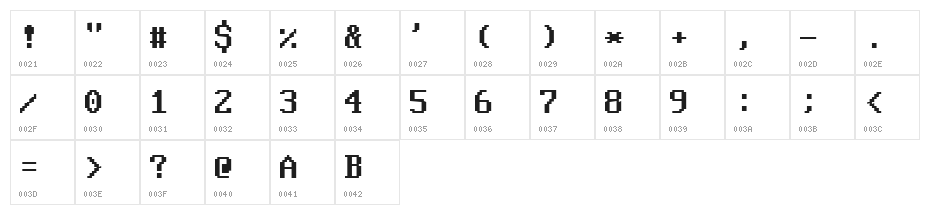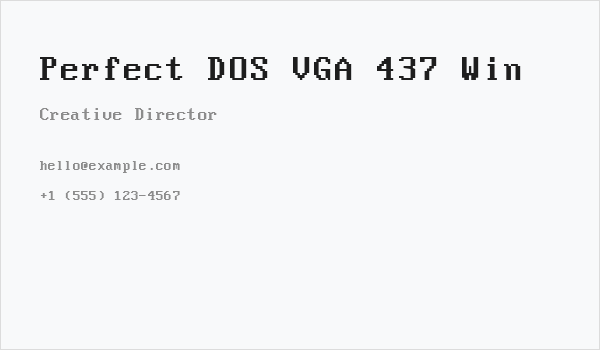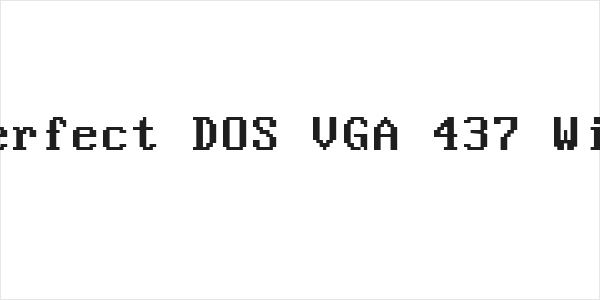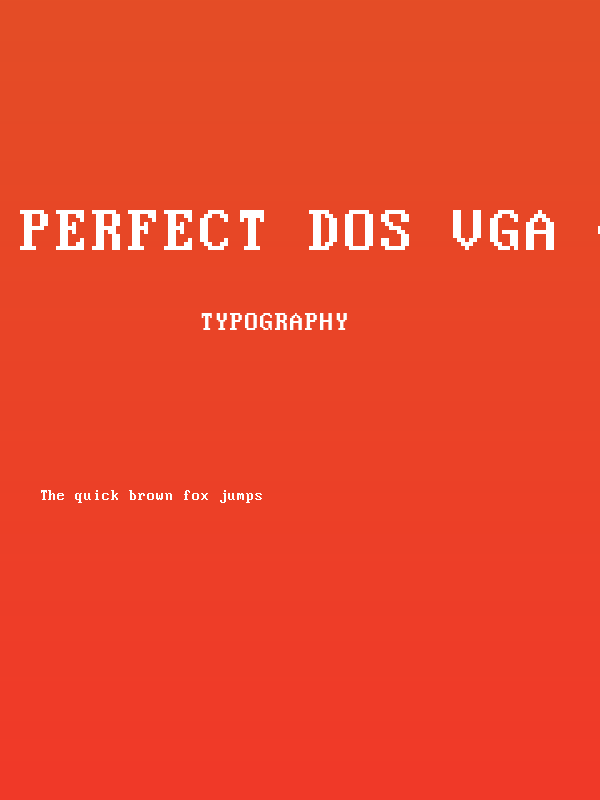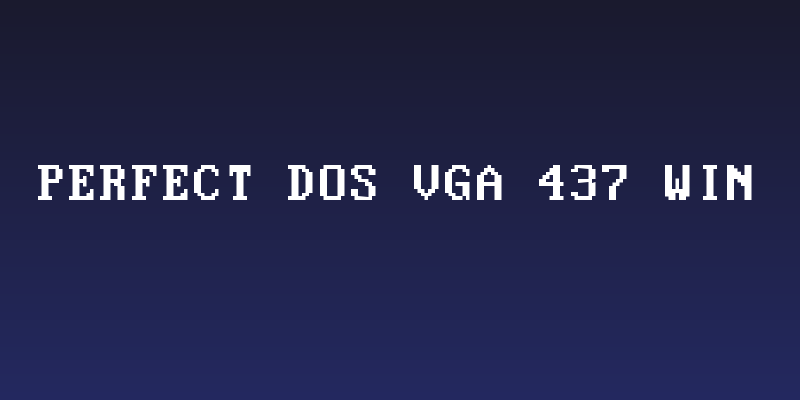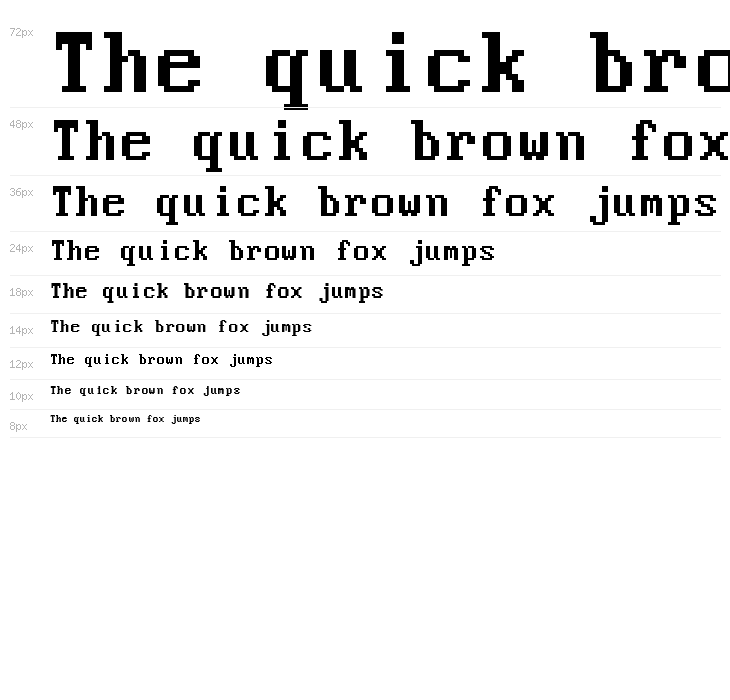
Perfect DOS VGA 437 Win Font
Perfect DOS VGA 437 Win Description
This font is a pixelated, monospaced typeface reminiscent of classic DOS and early computer screens. Each character is designed with a grid-like structure, giving it a retro, digital appearance. The uppercase and lowercase letters maintain a consistent height, while the numerals and special characters are crafted to align perfectly within the same pixel grid. The font's simplicity and uniformity make it ideal for creating a nostalgic or technical aesthetic. Its clear, legible design is perfect for use in environments where readability is crucial, such as coding or digital displays.
| Use Case | Digital displays, Coding, Retro designs |
| Proposed Projects | Ideal for retro-themed designs, coding environments, digital displays, and video game graphics. |